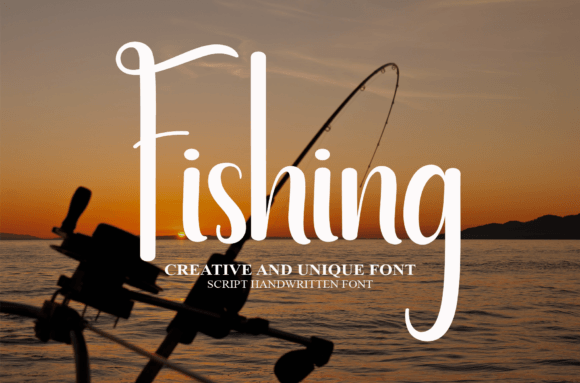
Are you looking for the perfect font to add a personal touch to your design projects? Look no further than Fishing Font, the best font for gift cards and more! Created by the talented William Jhordy, Fishing Font is a sweet and friendly handwritten font that exudes charm and personality.
With its fresh and neat appearance, Fishing Font is the perfect choice for a wide range of projects. Whether you're designing wedding invitations, greeting cards, or simply adding some flair to your social media posts, Fishing Font will add a fun and playful touch that is sure to delight your audience.
One of the things that makes Fishing Font so unique is its handcrafted appearance. Unlike many fonts that look sterile and manufactured, Fishing Font has a warm and welcoming feel that instantly draws you in. The curves and loops of each letter are carefully crafted to create a sense of personality and charm, making this font perfect for any project that needs a personal touch.
Another great thing about Fishing Font is its versatility. While it is primarily a script font, it can be used in a wide range of settings thanks to its unique style. Whether you're designing a logo, creating social media graphics, or simply adding some flair to your personal blog, Fishing Font is the perfect choice.